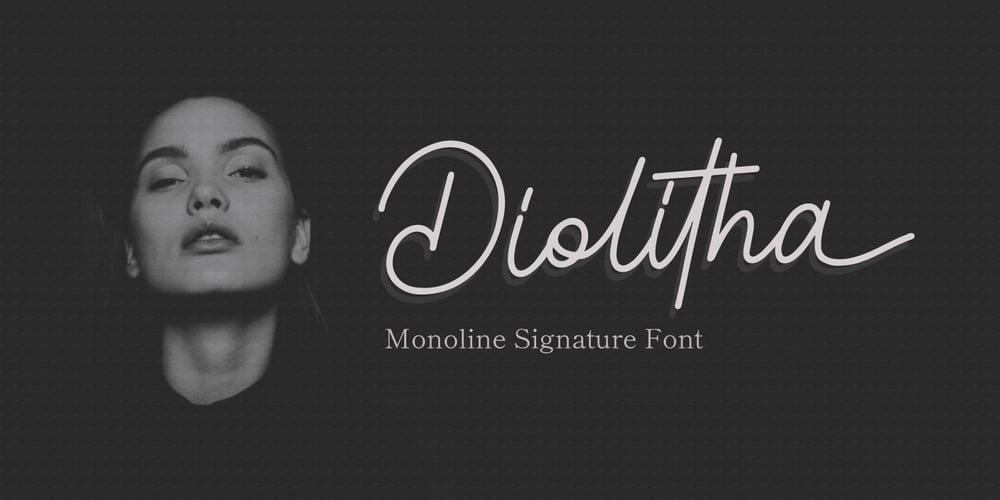
Diolitha Font Family was designed by Fadli Ramadhan Iskandar and published by Attype Studio. Diolitha contains 1 styles and family package options. Diolitha is monoline signature font with ending swash. Fall in love with its incredibly versatile style and use it to create spectacular designs!Diolitha is perfect for branding, logo, invitation, stationery, social media post, product packaging, merchandise, blog design, game titles, cute style design, Book/Cover Title and more.What’s Included :- Ending Swash- Ligatures- Multilingual Support